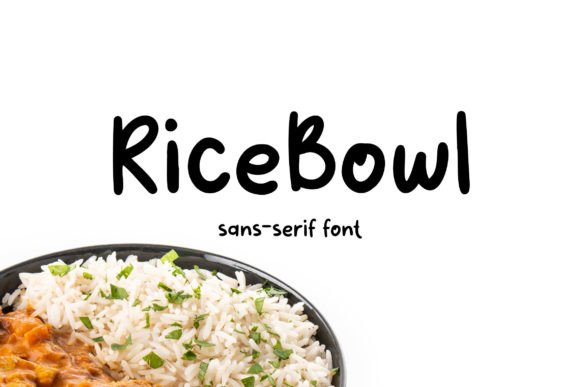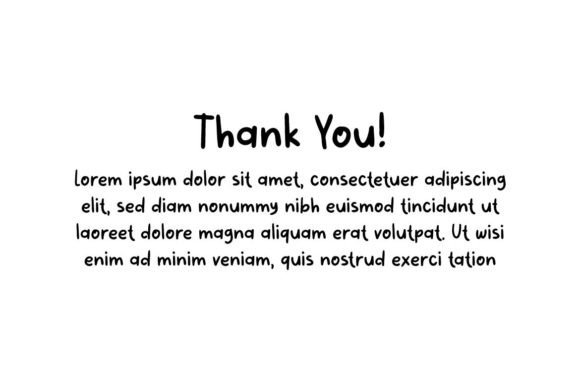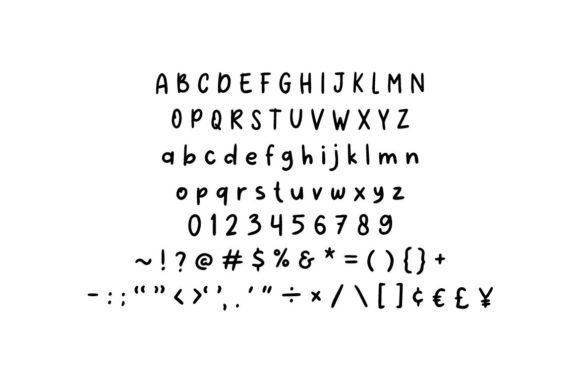
About Ricebowl Font
Rice Bowl is an exceptional handwritten font that offers a captivating blend of fun and modern aesthetics. Its unique charm and versatility make it an ideal choice for a wide array of creative endeavors. Whether you are working on designing restaurant menus, crafting eye-catching book covers, developing enticing music album artwork, producing charming children’s books, designing striking posters, creating compelling advertisements, curating engaging social media content, or developing memorable logos, Rice Bowl has the potential to take your projects to new heights.
What sets Rice Bowl apart is its handcrafted, human touch. It carries an inherent warmth and personality that can breathe life into your designs. The playful curves and contemporary strokes of this font lend it an inviting and approachable character. When used in restaurant menus, it can evoke a sense of delectable delight, enticing diners to explore culinary offerings. In book covers and children’s books, it adds a whimsical touch that appeals to readers young and old.
For musicians, Rice Bowl can be the missing piece in their album artwork puzzle, making their music stand out in a crowded market. Its unique style can also be harnessed in poster designs, effortlessly capturing attention and conveying messages effectively. Advertisers can employ it to create memorable and relatable ad campaigns that connect with their target audience on a personal level.
In today’s digital age, Rice Bowl is equally at home in the realm of social media. It adds a refreshing and authentic feel to content, making it shareable and engaging. Your posts will not go unnoticed when they feature this charming font. Moreover, it can be the cornerstone of a brand’s visual identity, serving as a logo that embodies its values and mission.
What’s truly remarkable about Rice Bowl is its adaptability. It can seamlessly transition from a playful, childlike tone to a sophisticated, contemporary one, making it suitable for diverse projects. Its usage isn’t limited to the creative field; it can be employed in various industries, such as hospitality, publishing, music, and advertising.
In conclusion, Rice Bowl is more than just a font; it’s a creative companion that injects character and liveliness into your projects. Its handwritten charm and modern appeal make it an invaluable asset for anyone looking to make a lasting impression through visual communication. So, don’t hesitate to explore the endless possibilities that Rice Bowl offers, and watch your creative endeavors flourish with its unique touch.